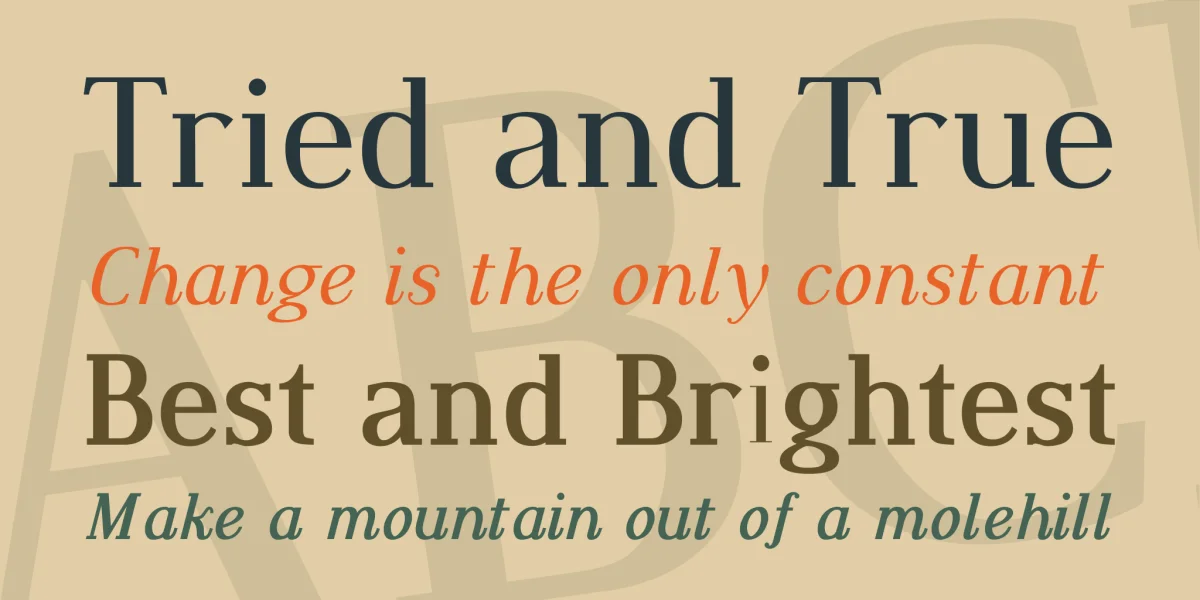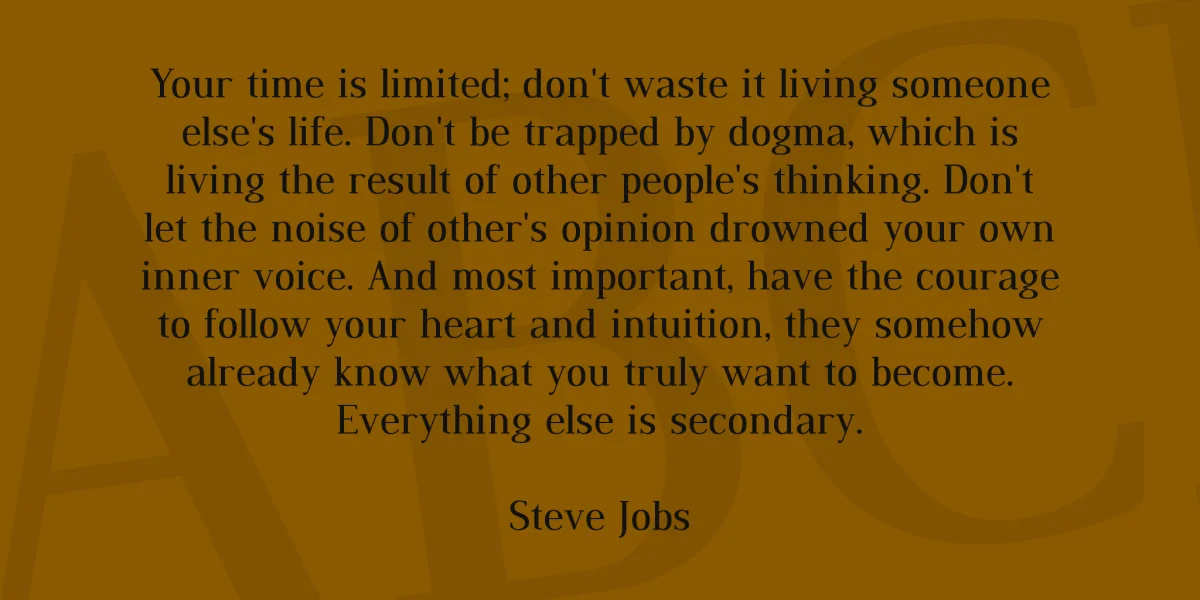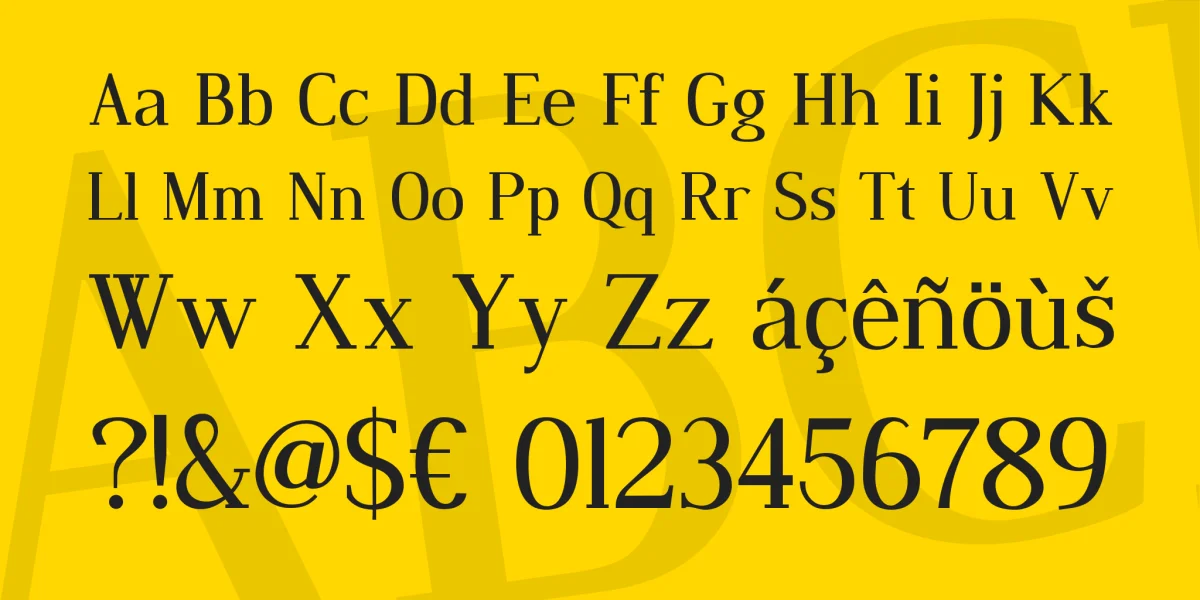
Roman typeface, contains more characters then you will ever use (over 470). Released under GPL license. Enjoy
-Now contains italic, bold, and bold italic faces